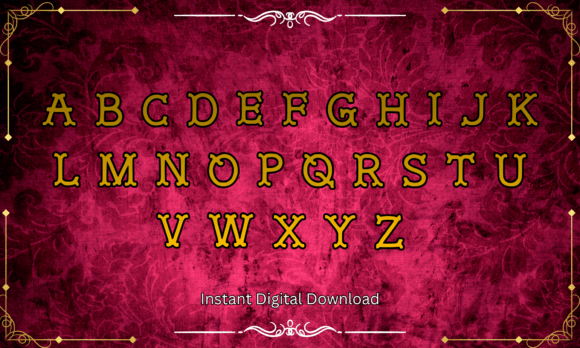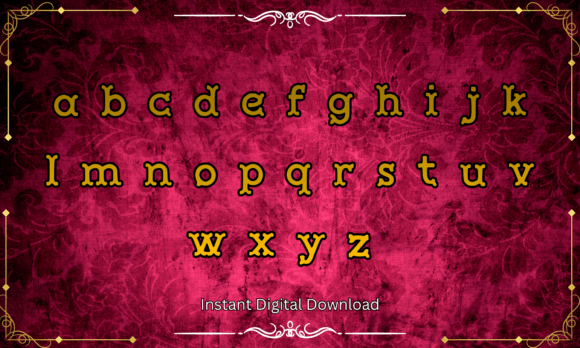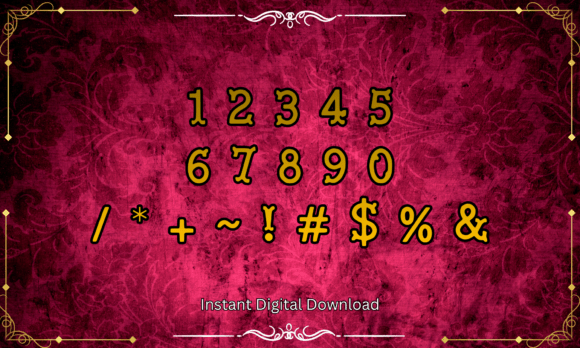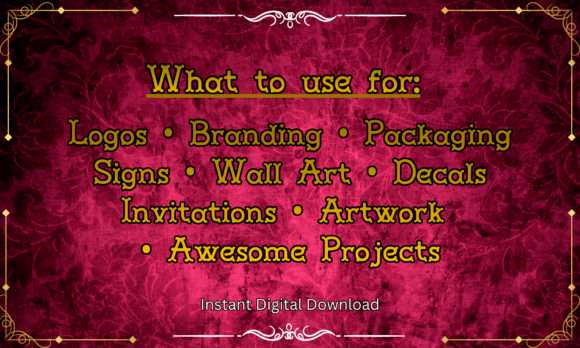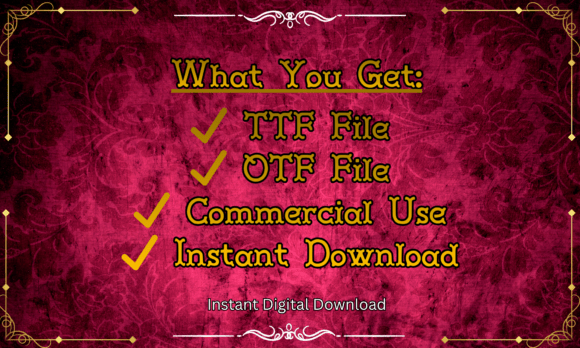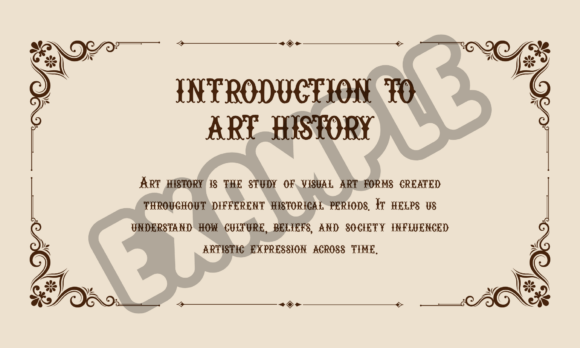
Introduction to Royal Victorian Font Font
Fonts play a crucial role in design, and the Royal Victorian Font font is a typeface that brings both character and versatility to any project. Whether you’re working on a branding project, a website, or a print design, the Royal Victorian Font font offers a unique style that can elevate your work.
Add timeless elegance and aristocratic beauty to your creations with Royal Victorian Font πβ¨ Inspired by vintage Victorian design, royal aesthetics, antique typography, and luxurious decorative lettering, this elegant serif font brings sophistication and bold personality to every project.
Featuring refined curves, regal styling, and classic vintage charm, Royal Victorian is perfect for luxurious branding and romantic old-world designs Whether youβre designing logos, wedding invitations, packaging, wall art, fantasy projects, or boutique branding, this font delivers a rich and elegant statement with every letter.
Key Features of Royal Victorian Font Font
Why Choose Royal Victorian Font Font?
The Royal Victorian Font font is more than just a typeface β it’s a design tool that helps you communicate your message with style and clarity. Its unique character set and versatile design make it suitable for a wide range of applications, from elegant invitations to bold headlines.
With its carefully crafted letterforms and balanced proportions, the Royal Victorian Font font ensures readability and visual appeal across all mediums.
What makes Royal Victorian Font font special?
The Royal Victorian Font font stands out with its unique design, exceptional readability, and versatility across various design applications.